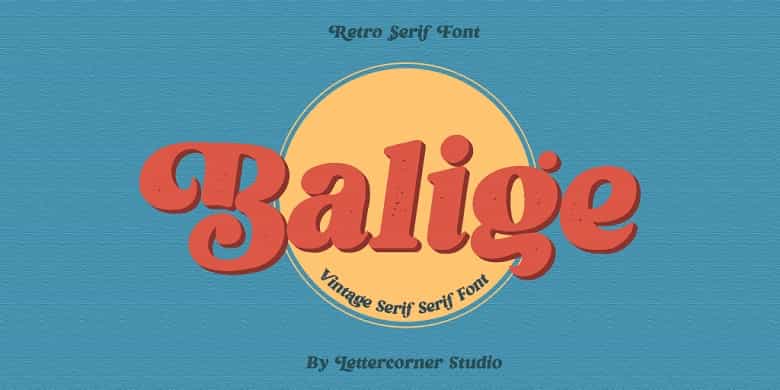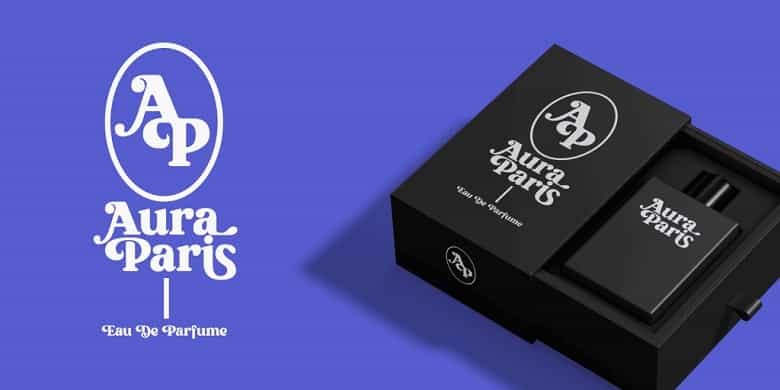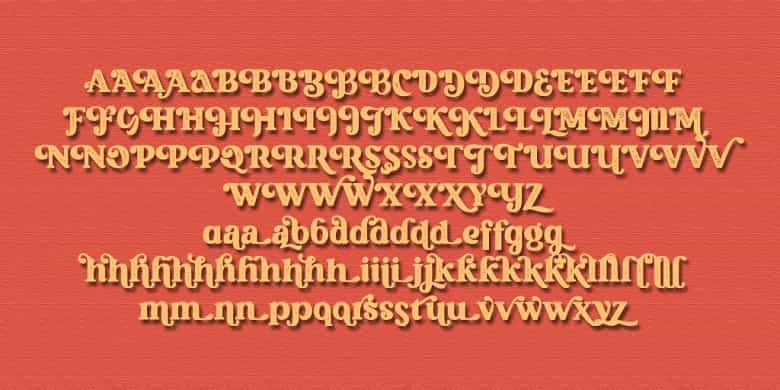
Balige is a new and fresh vintage bold font of the serif type with retro feeling inside. This typeface has a strong and unique character and has a slight vintage feel to it; thus, it is best for headlines, logo designs, and poster designs. Add an elegant and stylish look to your design projects with the help of this stylish font.